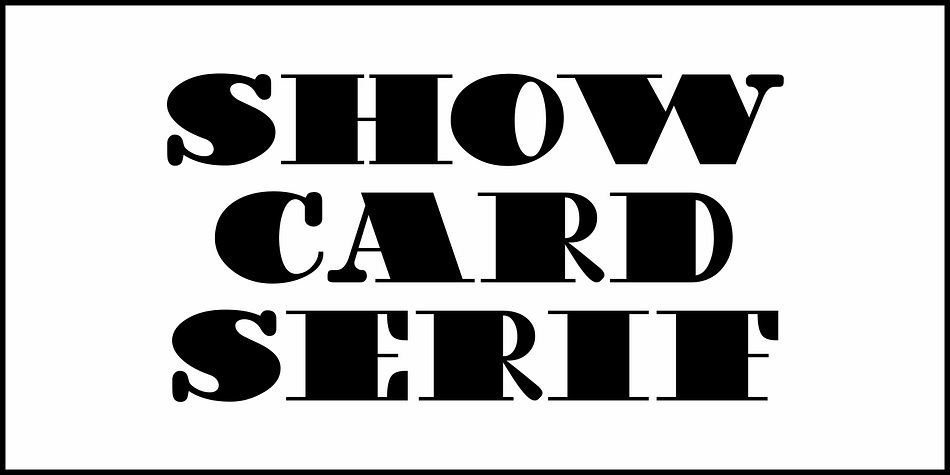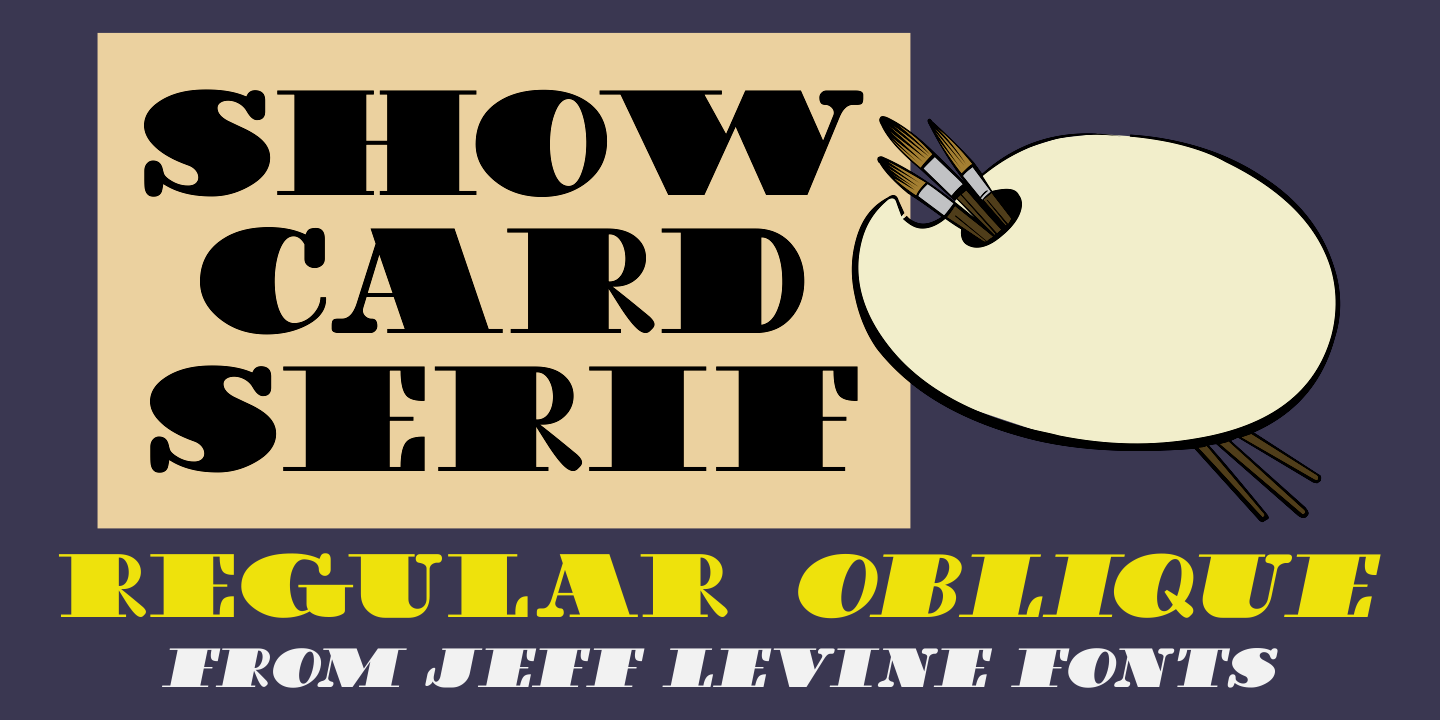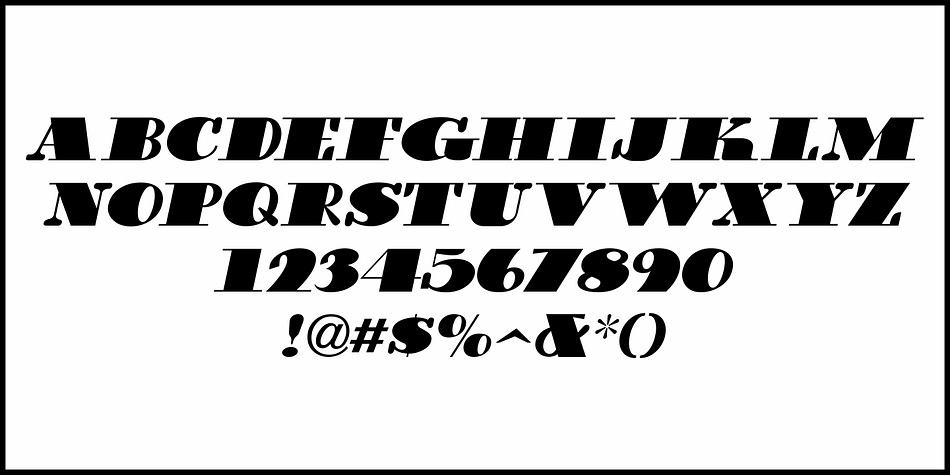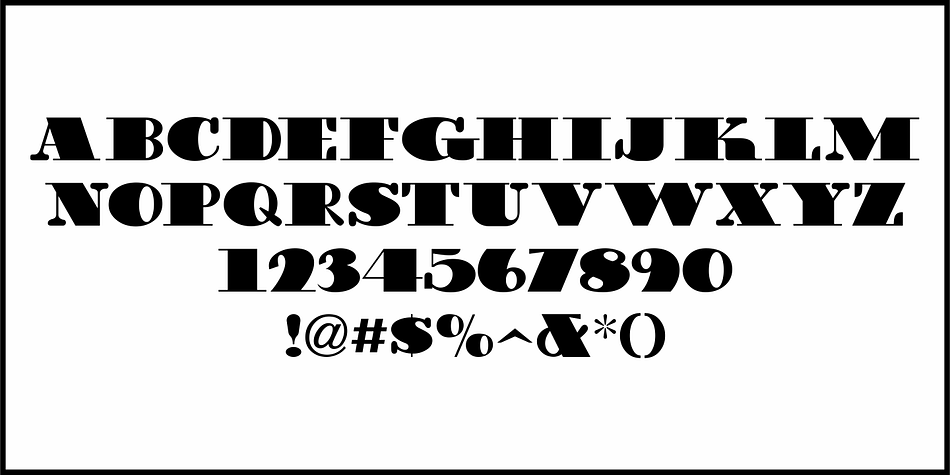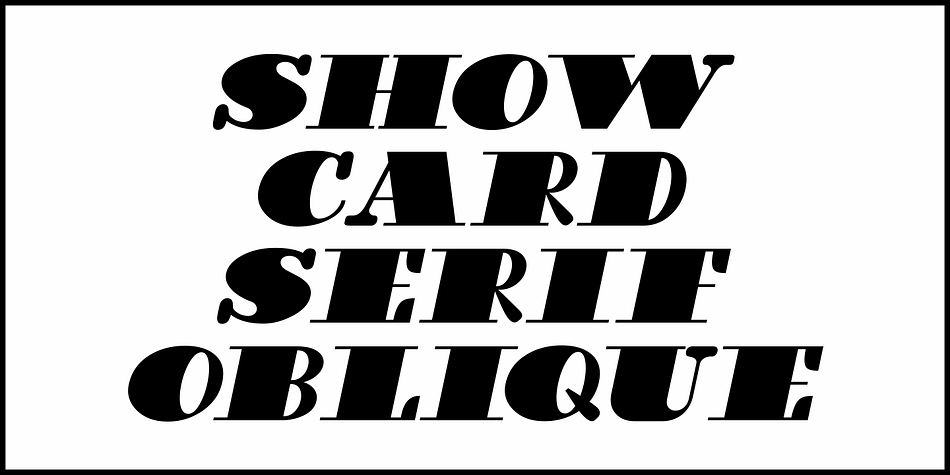
Show Card Serif JNL
Designed by Jeff Levine, Show Card Serif JNL is a display serif font family. This typeface has two styles and was published by Jeff Levine Fonts.
The 1949 book “Applied Lettering & Design” by Rand Holum showed a number of metal type faces as style examples.  One in particular did not carry its original foundry name, but was referred to by Holum as “a novelty Roman cartoon face”.
In actuality, it’s a casual brush stroke design, often found in ads and in hand lettered show cards and signs.
This is now digitally available as Show Card Painter JNL, in both regular and oblique versions.